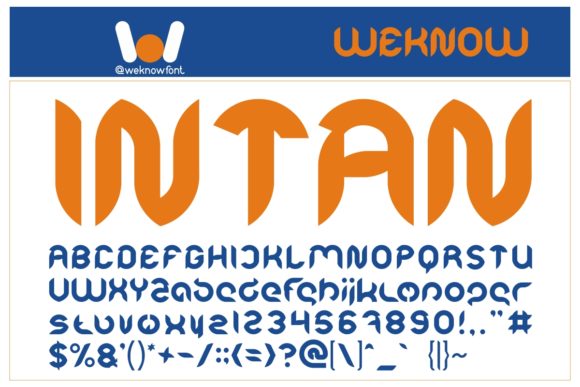
Step into the realm of typography and discover Intan, a display font that captures the essence of urban flair and style. Intan Font will redefine your creative endeavors with its remarkable design and boundless versatility.
Indulge in the captivating beauty of Intan, a font that dances between elegance and edginess. Its relaxed demeanor and urban vibe make it the perfect companion for diverse design projects. Whether you're crafting striking logos, designing captivating posters, or weaving visually compelling social media graphics, Intan promises to elevate your creations.
Intan's remarkable display qualities make it a standout choice for designers seeking to make a bold statement. Let Intan's distinctive letterforms add an aura of sophistication and intrigue to your designs. Its urban aesthetic effortlessly blends with your vision, creating a cohesive and captivating visual impact.
Unleash your creativity and experience the boundless possibilities of Intan. Dive into a world of design freedom and let Intan's charm ignite your imagination. From flowing logotypes and captivating headlines to eye-catching posters and dynamic social media designs, Intan will elevate your projects to new heights of visual appeal.